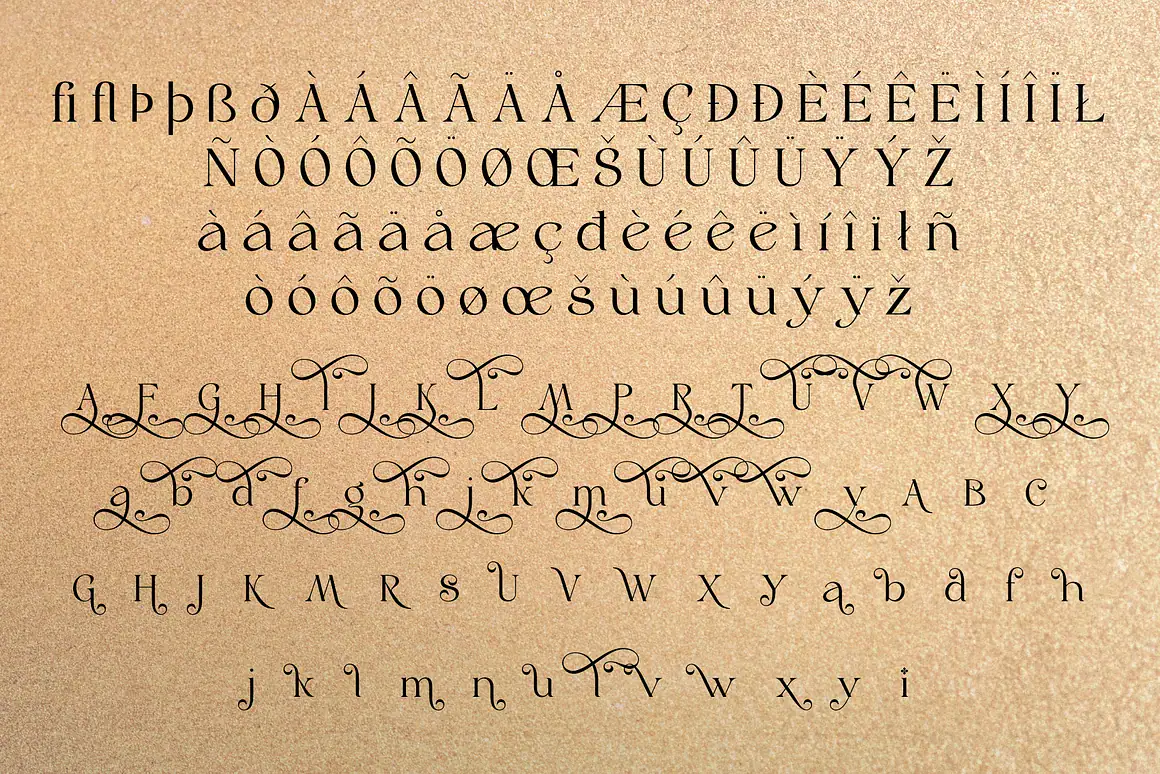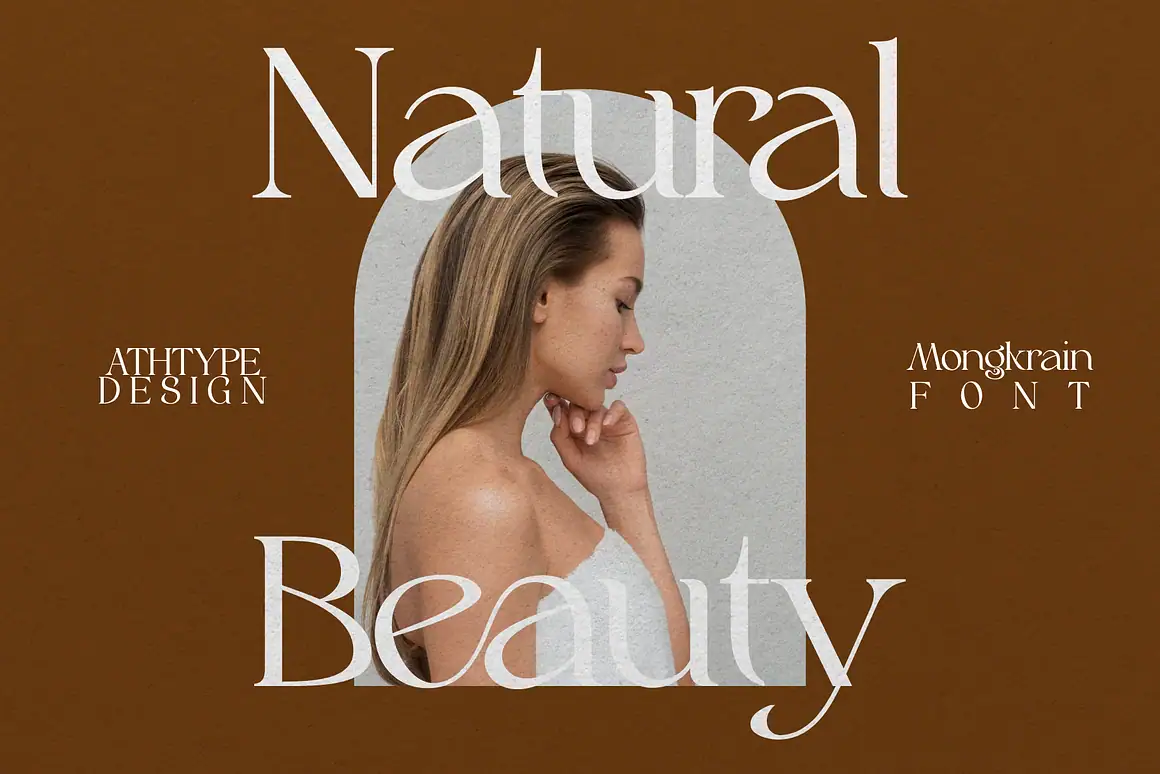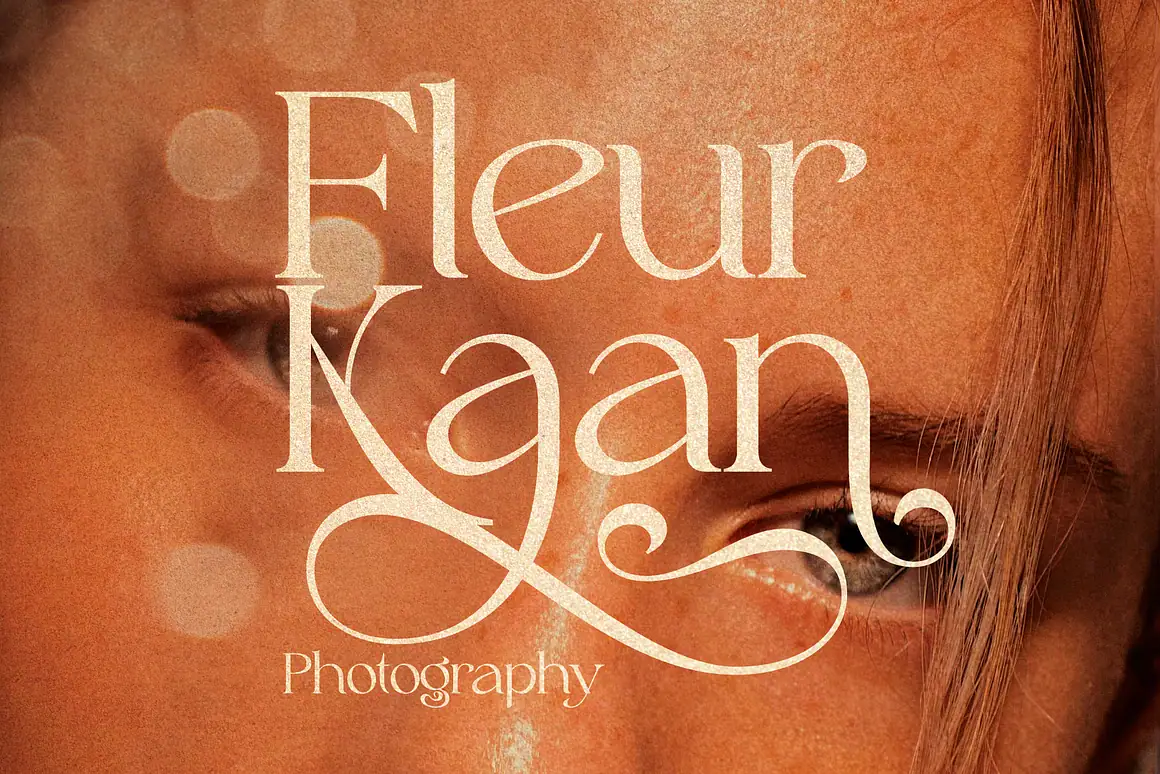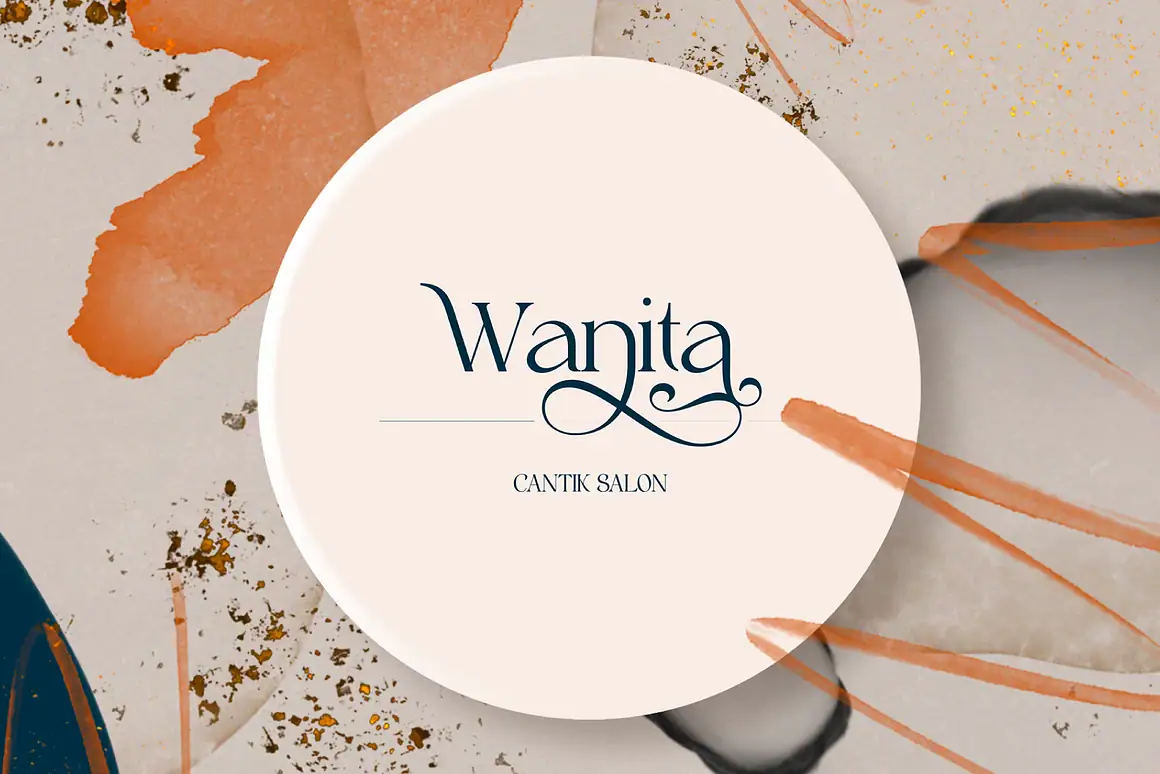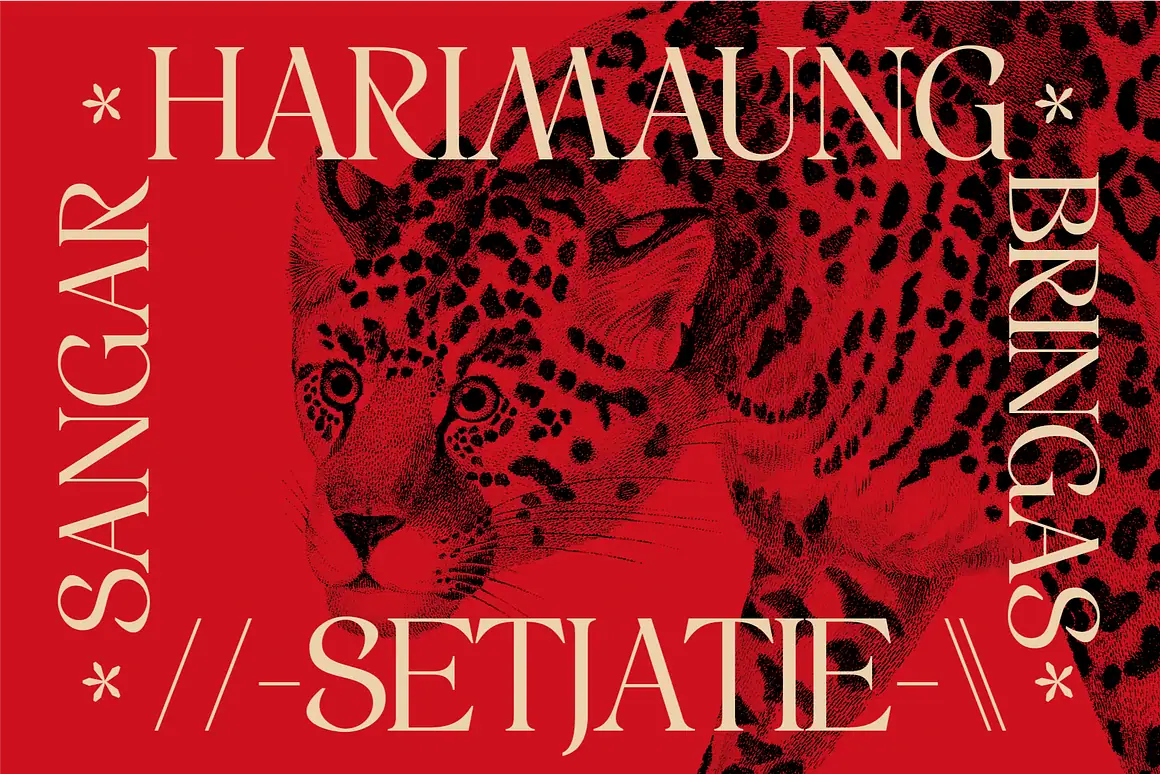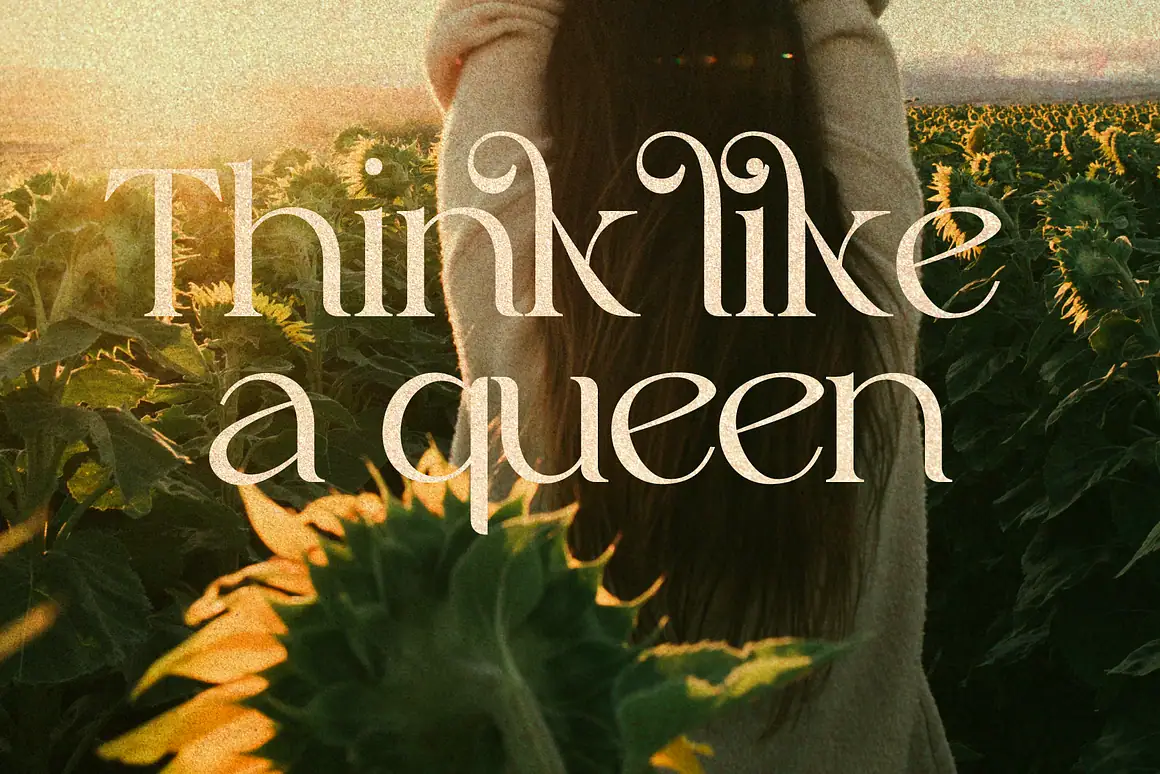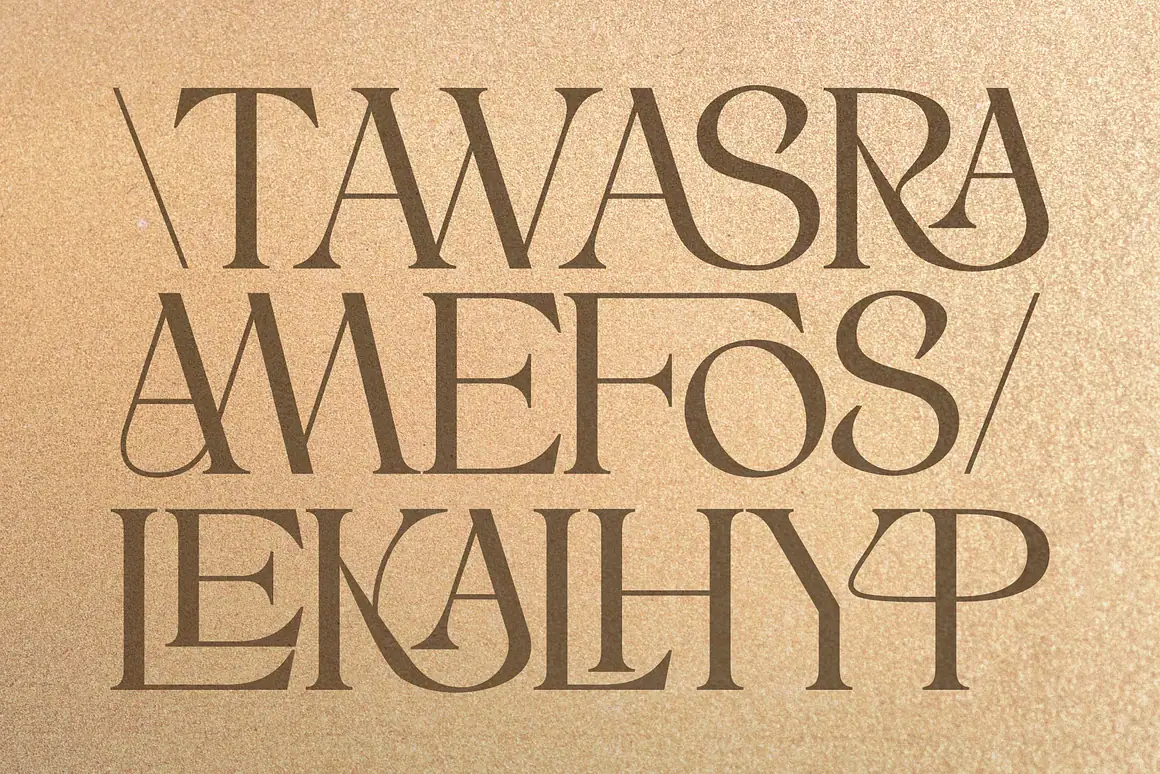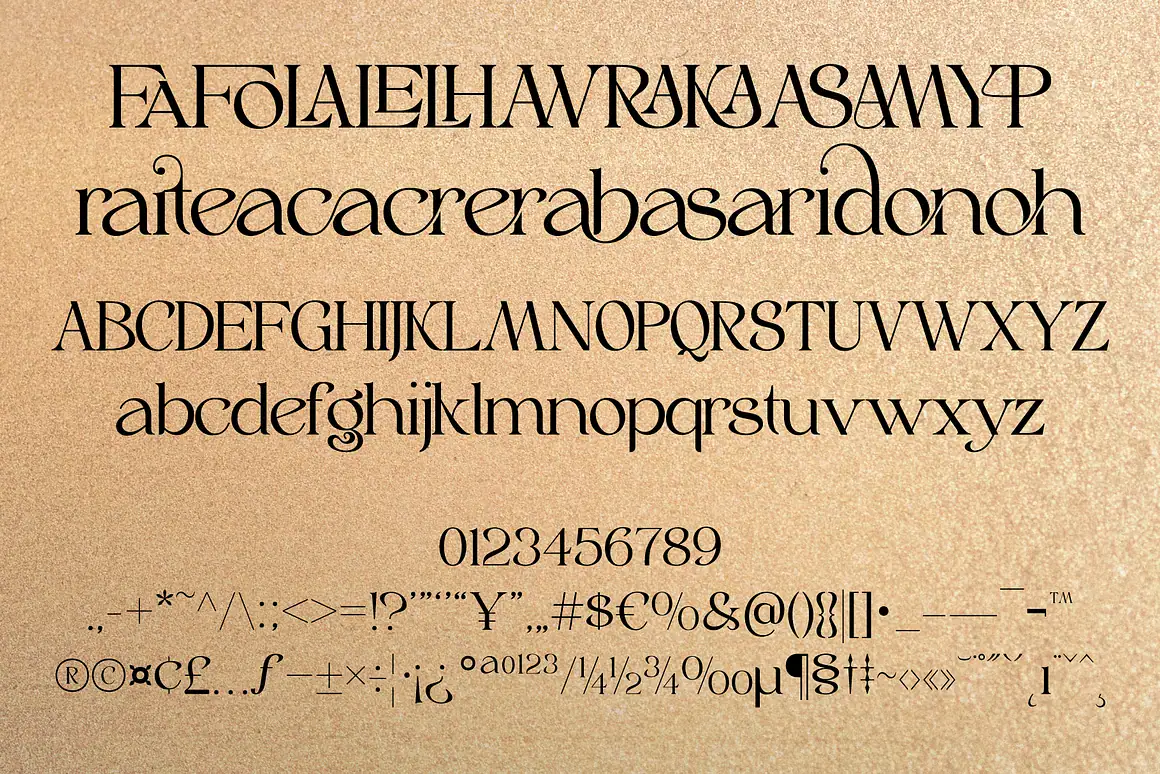
Mongkrain - Elegant Luxury Font
Mongkrain
Mongkrain – Elegant luxury font by Authen Type. Classic and elegant luxury font style designs lend themselves very well to branding designs for beauty and feminine products. Mongkrain could also be interesting for layouts, brochures, logos and invitations with different font concepts